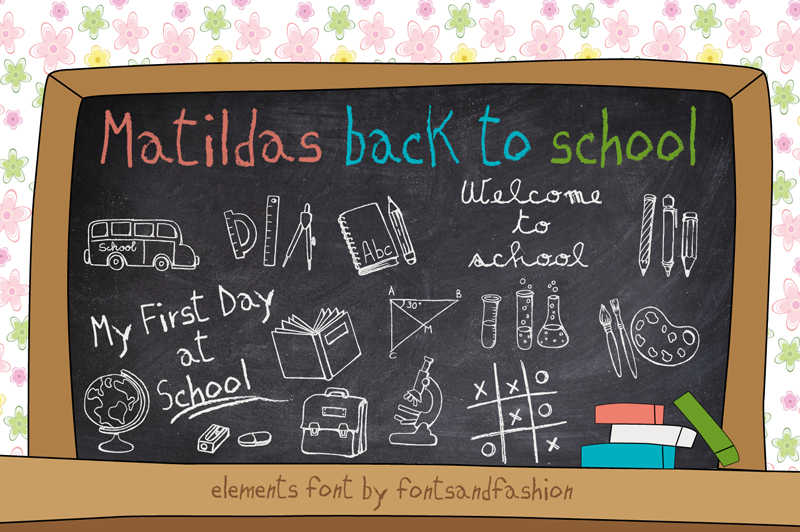
Preview and download Matildas Back To School Font. Created by fontsandfashion in Dingbats Kids styles with Demo license.
�MATILDAS BACK TO SCHOOL� is an elements font inspired by my little niece's school time. "MATILDAS BACK TO SCHOOL" is composed by 63 elements. You can download the FULL version of "MATILDAS BACK TO SCHOOL" on: https://fontbundles.net/httpswwwfontsandfashioncom/250598-matildas-back-to-school More Fonts by Fontsandfashion on DaFont: http://www.dafont.com/it/fontsandfashion-com.d6176 Follow us on: facebook: https://www.facebook.com/fontsandfashion Pinterest: https://www.pinterest.com/fontsandfashion/ Instagram: https://www.instagram.com/fontsandfashion/ |